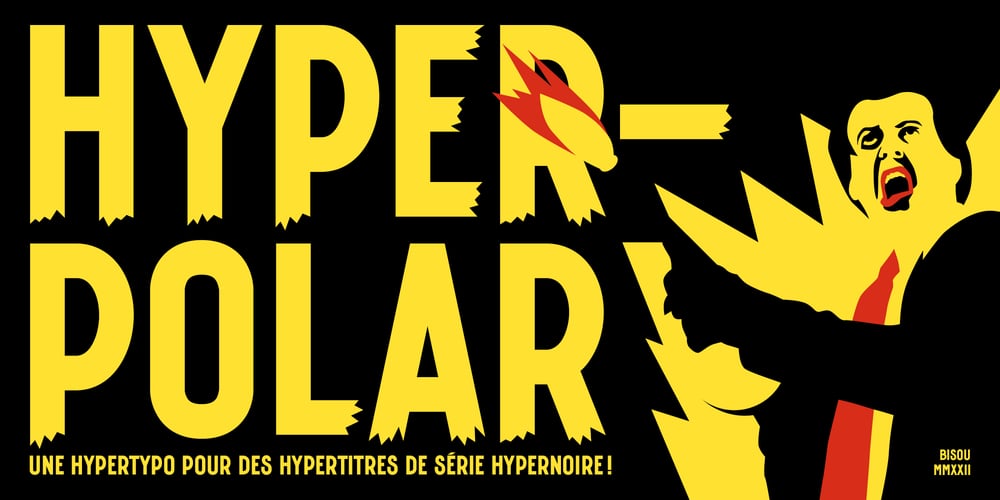
Hyperpolar Font Family was designed by Mathias Antonietti and published by Bisou. Hyperpolar contains 6 styles and family package options. Made in La Chaux-de-Fonds (Switzerland), hyperpolar is born while the designer (Bisou) watches “Godard mon amour”, a biopic about Jean-Luc Godard’s depression in 1967-68. A parade of murder mystery books is staged at the middle of the movie and at exactly 56 minutes and 47 seconds, the book “Confrontation” strikes Bisou’s eye. It is the first inspiration for this awsome retro font. Hyperpolar is thought from ground up to give a strong impact. It’s retro 50’s crime stories style makes it best suitable book covers. It works perfectly with short texts for advertisement like a trench coat or a smoking pipe store. Just hang it over a video club and see what thrilling cinephiles will come in.